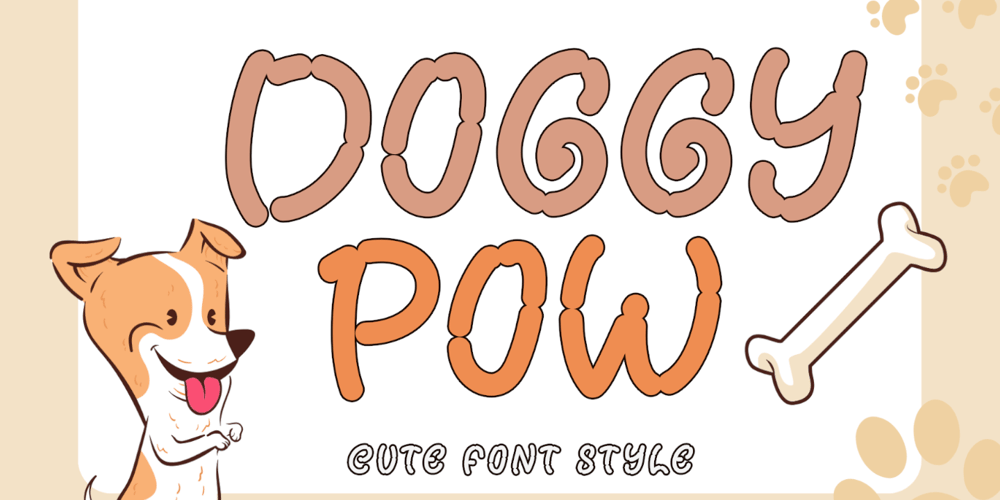
Doggy Pow Font Family was designed by Isroni Yoga Prasetya and published by Yoga Letter. Doggy Pow contains 1 styles and family package options. “Doggy Pow” is a cute display font. This font is equipped with uppercase, lowercase, numerals, punctuation, and multilingual support. Very suitable for Easter, banners, posters, prints, logos, stickers, comics, branding, summer, pet shop, business branding, and others.